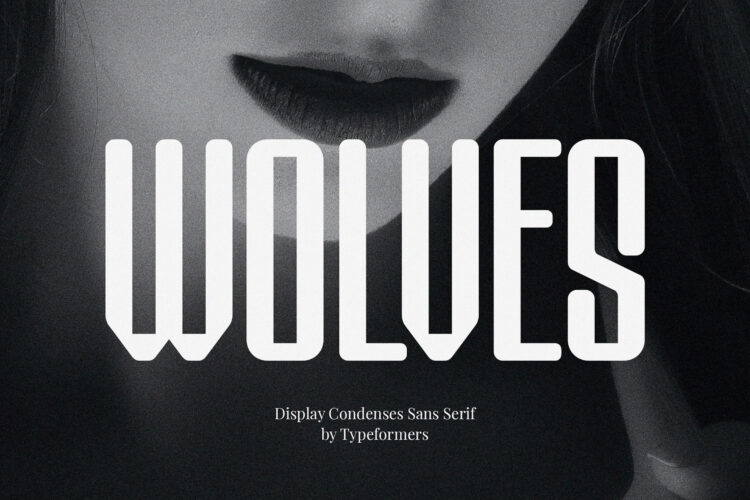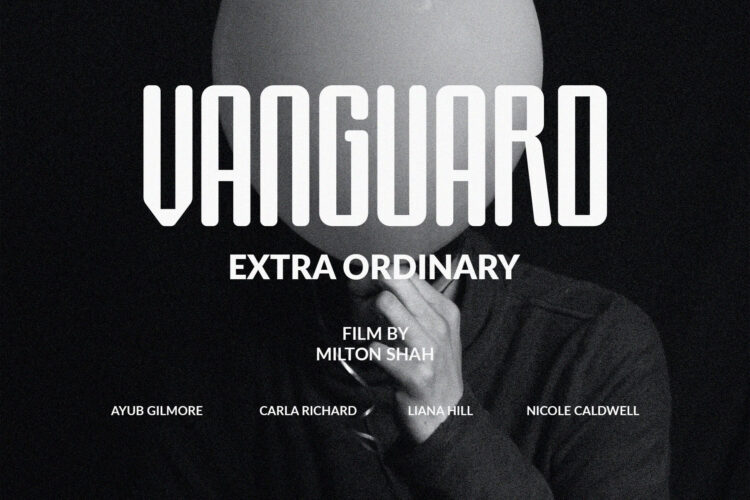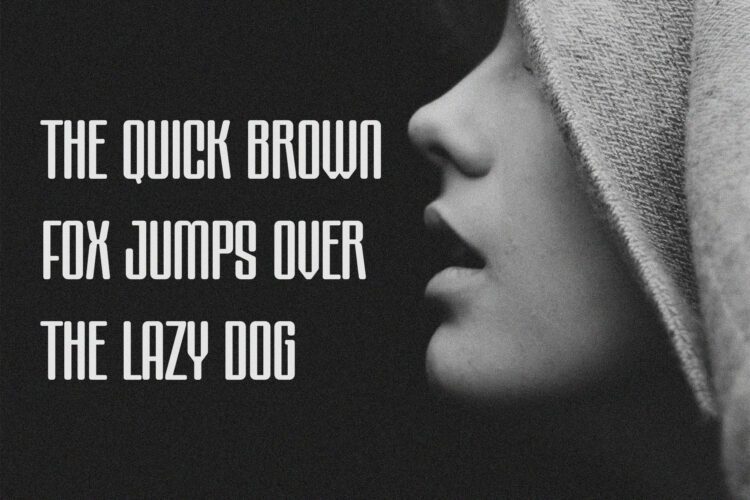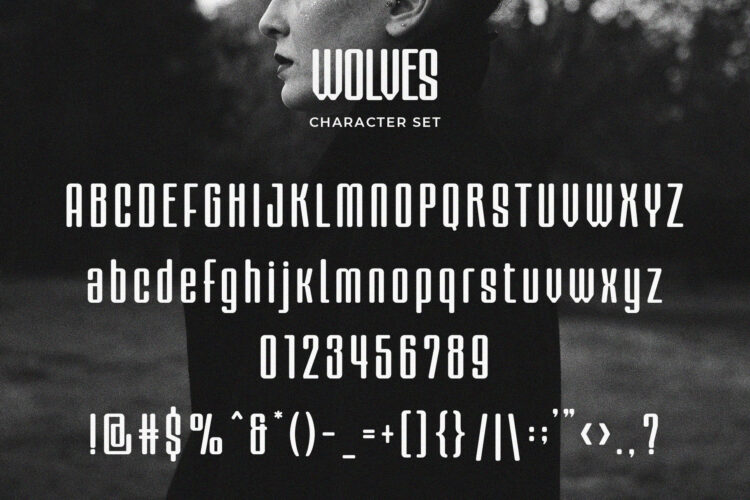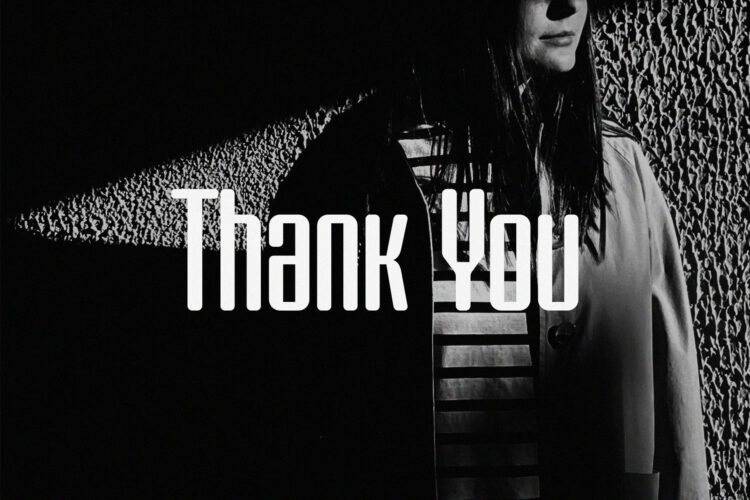
Introducing Wolves – Display Condensed Sans Serif.
Wolves is a modern and simple font, best used as a display for headings, logos, branding, magazines, product packaging and invitations.